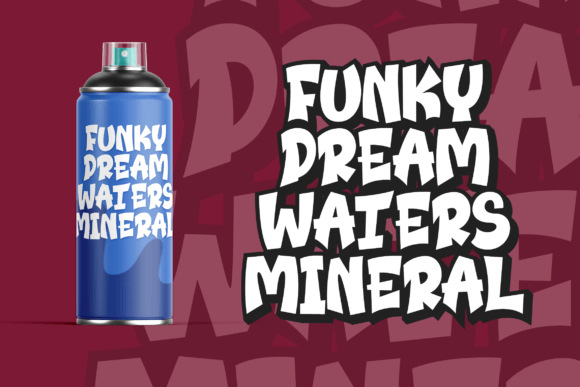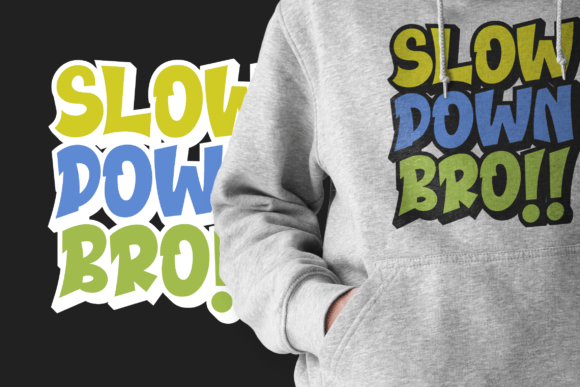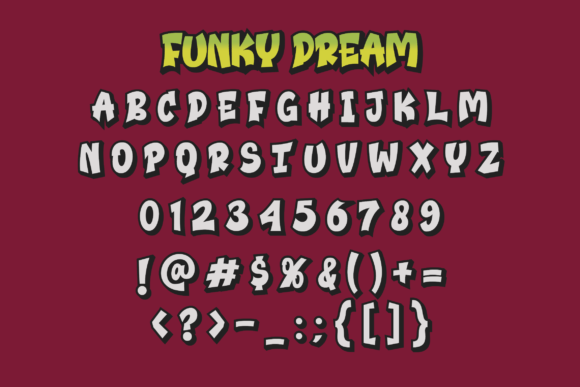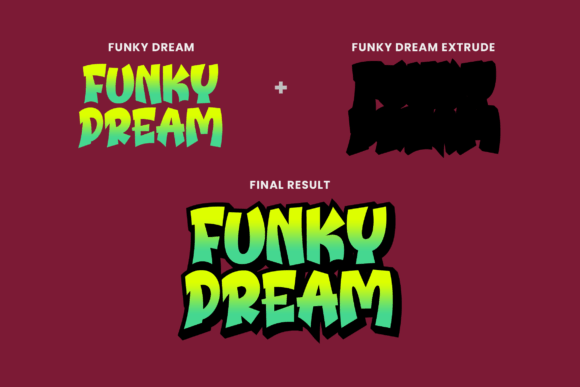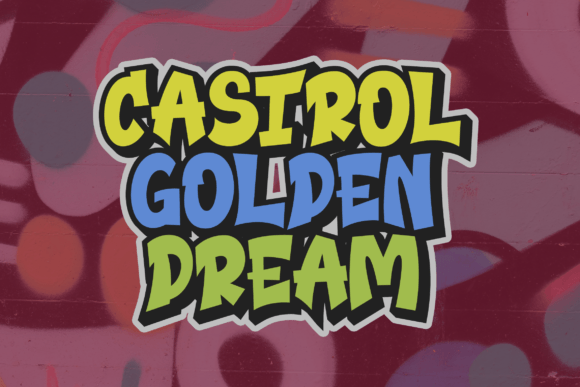
Introduction to Funky Dream Font
Have you ever been brainstorming ideas for a creative project and suddenly, the perfect font pops into your head, elevating your concept from good to great? That’s exactly what happened to many designers when they discovered the Funky Dream Font. This cool, graffiti-style display font is the perfect addition to any urban and casual design.
Key Features of Funky Dream Font
- Unique, hand-drawn design with a quirky and playful feel, perfect for creative projects.
- Transparent background, allowing for easy layering and customization in design applications.
- High-resolution design, ideal for use in print and digital media, including posters, flyers, and social media graphics.
- Supports a wide range of languages, including Latin, Cyrillic, and Greek alphabets, making it a versatile design resource.
Honest Review: Funky Dream Font
I recently stumbled upon the Funky Dream Font, and I must say it’s a great addition to any designer’s toolkit. This free download is perfect for creative projects that require a touch of whimsy and playfulness.
One of the things that stands out about this font is its high-quality design. The letters are smooth, and the transparent background makes it easy to customize and integrate with other design elements.
- What works well: ✨ The font’s unique style and versatility make it suitable for a wide range of creative projects, from social media graphics to print materials.
- Limitations: ⚠️ The font may not be suitable for professional or formal projects, as it has a more playful and informal tone.
Overall, I’m impressed with the Funky Dream Font. It’s a great resource for designers looking for a unique and eye-catching font to add some personality to their creative projects.
Getting the Most Out of Funky Dream Font
To get the most out of Funky Dream Font, use it in combination with other design resources, such as graphics and textures. Experiment with different font sizes, colors, and styles to create a unique and eye-catching design.